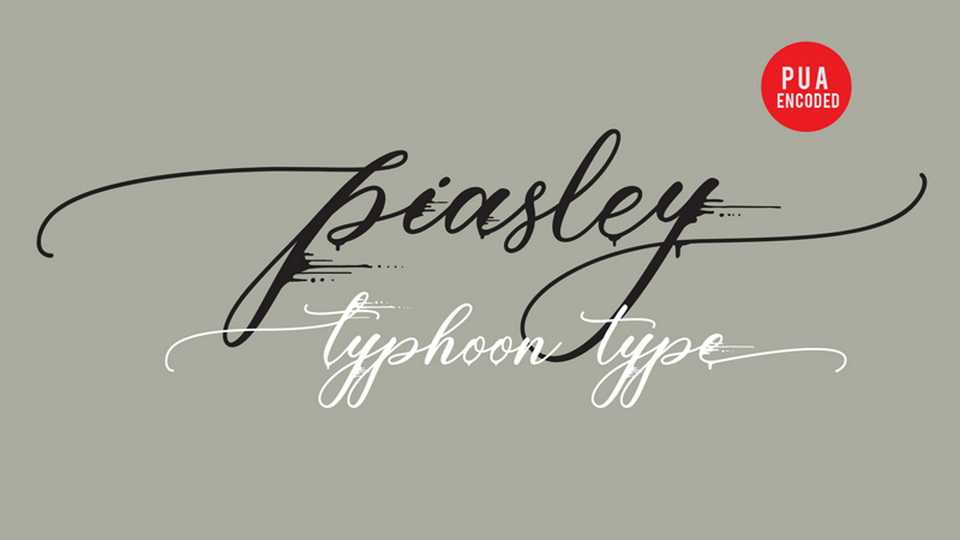
Download Piasley font, a delicate and fashionable script typeface. Thin and elegant, Piasley will elevate each of your favorite designs.
Designer: TyphoonType